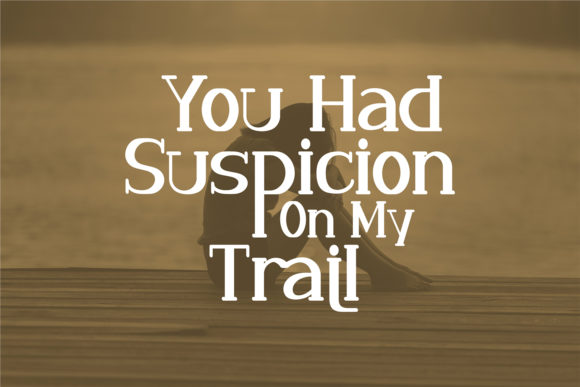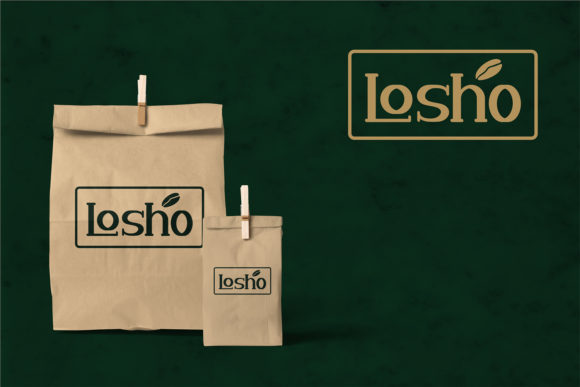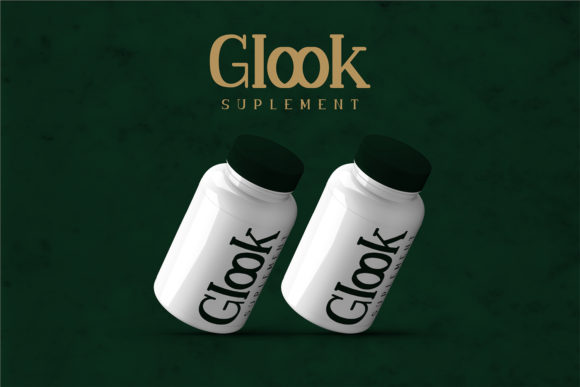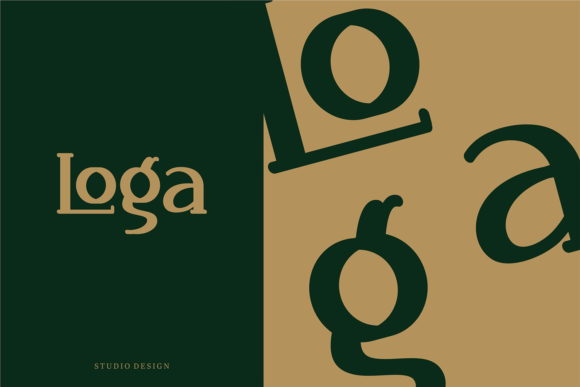
Introduction to Lokills Font
Have you ever found yourself stuck in a creative rut, searching for the perfect font to elevate your project? You’ve poured your heart and soul into the design, but something’s missing – that certain je ne sais quoi that sets it apart from the rest. For designers, finding the right font can be a daunting task, but what if I told you there’s a stunning serif font that’s sure to breathe new life into your creative project?
Meet the Lokills Font, a high-quality, elegant typeface that’s equal parts charming and sophisticated. Its beautiful arrangement of letters is a stylish homage to classic calligraphy, making it an invaluable design resource for any creative project. Whether you’re working on a formal invitation or a casual blog post, the Lokills Font is sure to impress.
Key Features of Lokills Font
- High-quality design for creative projects, including logos, graphics, and typography.
- Includes a wide range of characters, including uppercase and lowercase letters, numbers, and symbols.
- Unique, handcrafted design elements that can be used to create a distinctive brand identity.
Honest Review: Lokills Font
I recently stumbled upon the Lokills Font, a high-quality design resource that caught my attention. As a designer, I’m always on the lookout for unique and creative fonts that can elevate my projects. In this review, I’ll share my honest thoughts on the Lokills Font.
- ⚠️ Limited font styles available (only a few weights)
- ⚠️ Not ideal for large blocks of text due to its unique design
Overall, the Lokills Font is a great addition to any design library. While it has its limitations, its high-quality design and transparent background make it perfect for creative projects. If you’re looking for a unique font to add some flair to your designs, the Lokills Font is definitely worth checking out.
Tips for getting the most out of the Lokills Font include experimenting with different font sizes and styles, and using it in combination with other design elements to create a cohesive look.
Common Use Cases for Lokills Font
The Lokills Font is perfect for a variety of design projects, including logos, business cards, and social media graphics. Its high-quality design and transparent background make it a great choice for creative projects.
Is the Lokills Font suitable for high-quality print projects?
Yes, the Lokills Font is designed to meet high-quality print standards, with a clear and legible design that looks great on paper. The font’s transparent background makes it easy to combine with other design elements, and its high-resolution glyphs ensure crisp text at any size.